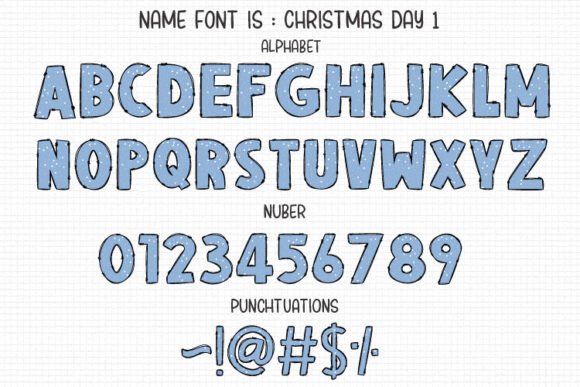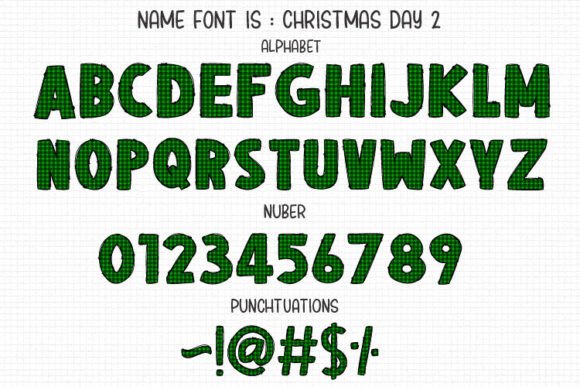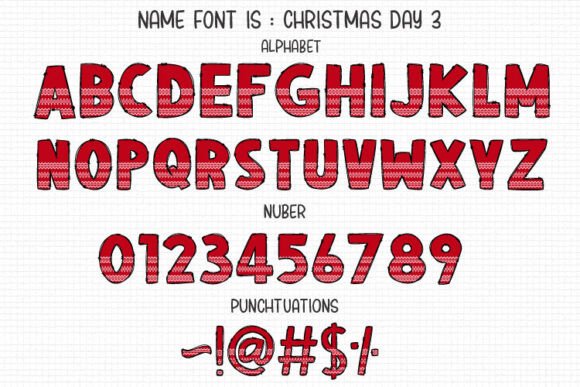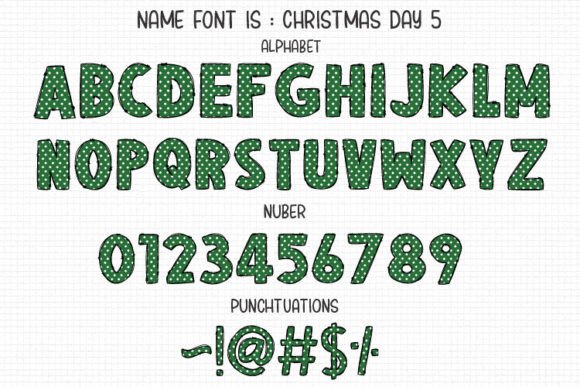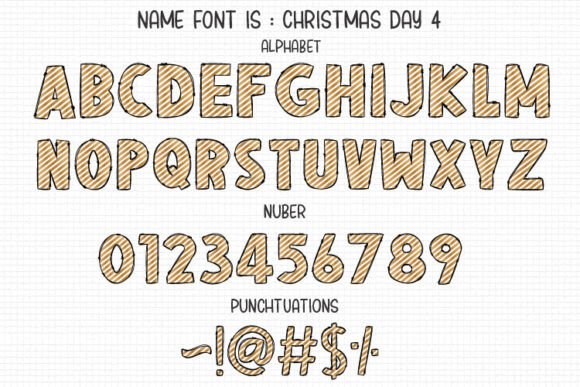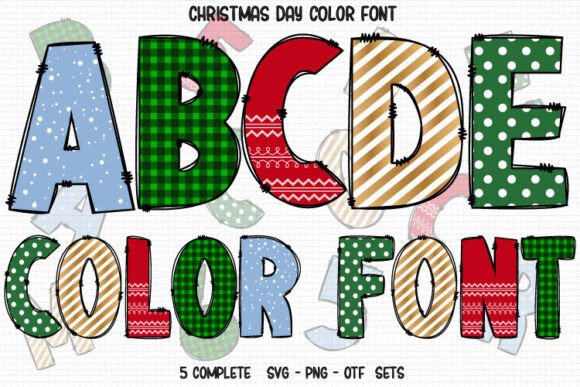
Introducing Christmas Day Font: Add a Festive Touch to Your Designs
Are you looking for a font that will make your Christmas-themed designs stand out? Look no further than the Christmas Day Font! This adorable and festive color font is perfect for adding a touch of holiday cheer to your projects. Whether you’re designing shirts, crafts, cards, or any other type of project, Christmas Day Font is sure to make it shine.
What Makes Christmas Day Font So Special?
Christmas Day Font is a unique and eye-catching font that is specifically designed to capture the spirit of the holiday season. Its bold and colorful design makes it perfect for creating festive and fun designs that will grab attention. The font is available in both black and color versions, making it versatile and easy to use.
Perfect for a Range of Christmas-Themed Projects
Christmas Day Font is the perfect addition to any Christmas-themed project. Whether you’re designing:
- T-shirts and hoodies for a holiday party
- Custom cards and invitations for friends and family
- Crafts and decorations for your home or office
- Signs and banners for a festive display
Christmas Day Font is sure to add a touch of festive fun and personality to your designs. Its bold and colorful design makes it perfect for creating eye-catching and engaging projects that will stand out from the crowd.
Christmas Day Font is a fun and festive color font that is perfect for adding a touch of holiday cheer to your designs. With its bold and colorful design, compatibility with a range of design software and cutting machines, and versatility in use, it’s an excellent addition to any designer’s or crafter’s toolkit.